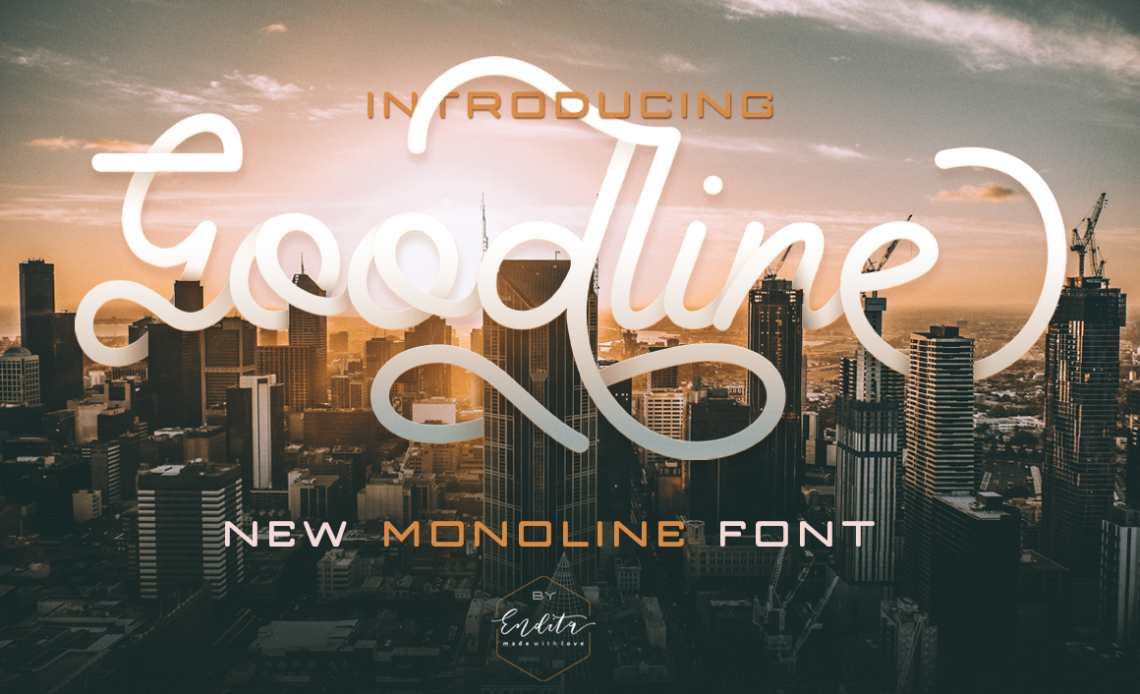
Goodline – Monoline Font
**Goodline - Monoline Font: The Gateway to Unforgettable Design**
In the realm of typography, where words dance and visuals captivate, there exists a font that embodies elegance, simplicity, and a hint of playfulness - Goodline. This monoline font, crafted with meticulous care by Telllu, is not just a font; it's an artistic expression that transforms your designs into masterpieces.
**Journey into the World of Goodline**
Goodline's appeal lies in its minimalist design, where each stroke flows with a graceful finesse. The monoline nature of the font lends it a clean and modern aesthetic that complements a wide range of projects. Whether you're a graphic designer, web developer, or simply someone who loves to dabble in the art of creation, Goodline is your perfect companion.
**Mesmerizing Headlines that Demand Attention**
With Goodline at your disposal, headlines become more than just words on a page. They transform into captivating statements that grab attention and leave a lasting impression. Its simple yet striking presence ensures that your messages stand out, whether on a website, poster, or social media graphic.
**Unleash Your Creative Potential**
Goodline is not just a font; it's a gateway to unleashing your creative potential. Its versatility extends beyond headlines, allowing you to experiment with logos, branding elements, and even body text. The font's clean lines and consistent rhythm bring a touch of sophistication to any project, elevating it from ordinary to extraordinary.
**Experience the Goodline Difference**
Choosing Goodline is not just a decision; it's an investment in your creative journey. This font will accompany you on a voyage of artistic exploration, helping you create designs that resonate with your audience. Its timeless appeal ensures that your projects remain relevant and captivating, even as trends come and go.
**Embrace the Beauty of Simplicity**
In a world saturated with visual clutter, Goodline offers a refreshing respite. Its simplicity allows your designs to breathe, creating a harmonious balance between form and function. Whether you're crafting a minimalist website, a striking poster, or eye-catching social media content, Goodline will elevate your work with its understated elegance.